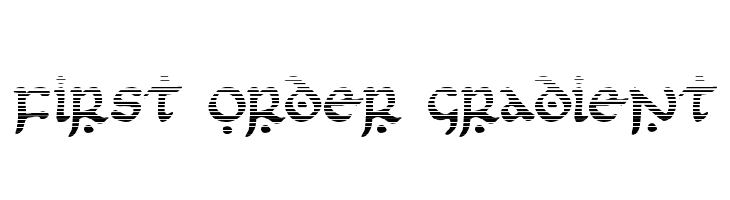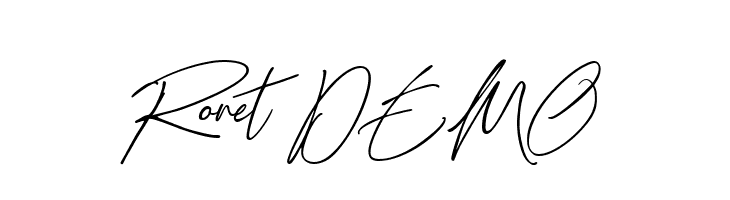
A decorative font with leaf and flower motifs, perfect for nature-themed designs.
An elegant, flowing script font with intricate, condensed letterforms.
A bold, striped script font with flowing curves and a decorative style.
A bold, expressive script font with dramatic curves and sharp strokes.
A modern, elegant cursive font with a handwritten style.
A bold, energetic script font with a brush-like, handcrafted style.
A playful, flowing script font with a handwritten style.
A sleek, hairline italic font with elegant and modern characteristics.
A bold, three-dimensional font with a vintage, shadowed style.